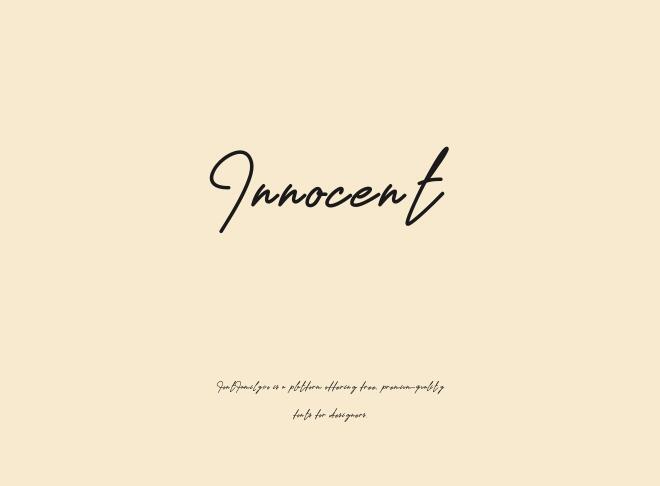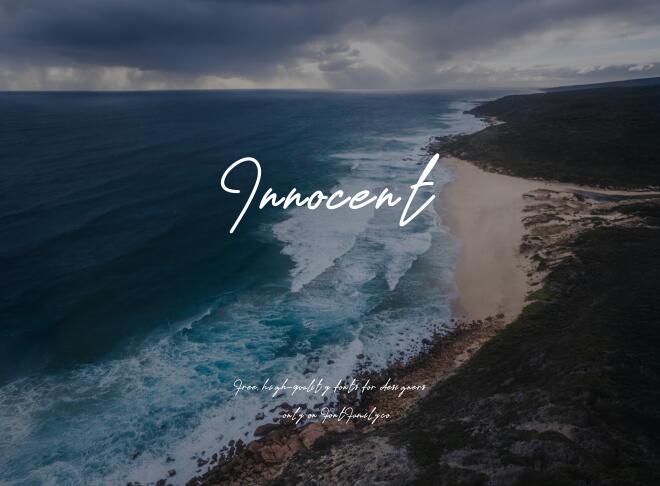
Innocent Font
Innocent Font, crafted by Creative Font Studio, is a playful, modern font with a rounded, handwritten style that injects a sense of fun and creativity into any design project. Its clean lines and soft curves make it a versatile choice for children's book covers, playful branding, or creative social media content. Compared to other fonts, Innocent Font stands out with its unique balance of simplicity and character. It's a great choice for designers looking to add a touch of warmth and whimsy to their work. Despite its playful charm, Innocent Font maintains a level of professionalism, making it suitable for a wide range of applications. The font’s rounded edges soften the overall look, making it inviting and approachable. Its modern aesthetic ensures it remains relevant and versatile in the ever-evolving design world.
Author | Creative Font Studio |